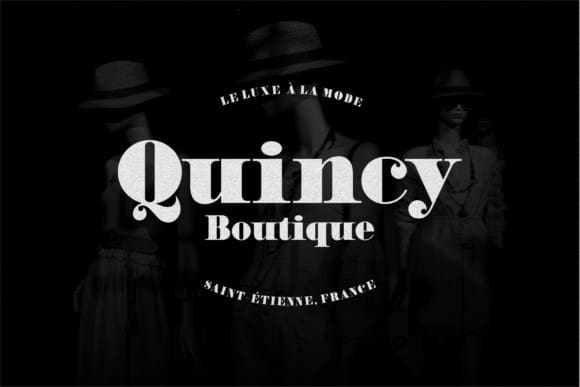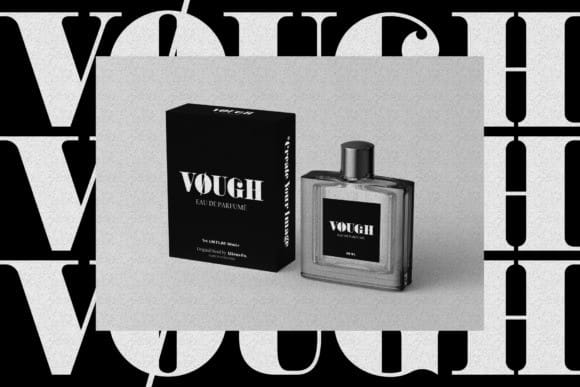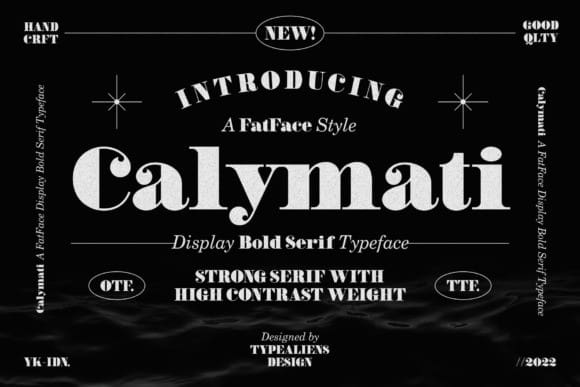
Calymati Font
Calymati Font is a bold vintage-style serif font that has beautiful curves. This font is basically a classic serif that is thick and has beautiful bends in the letters. Even though it looks sturdy, this typeface still has a beautiful size. It is suitable for vintage designs, such as brand logo badges or liquor labels but also can work for more modern designs like magazine headlines.